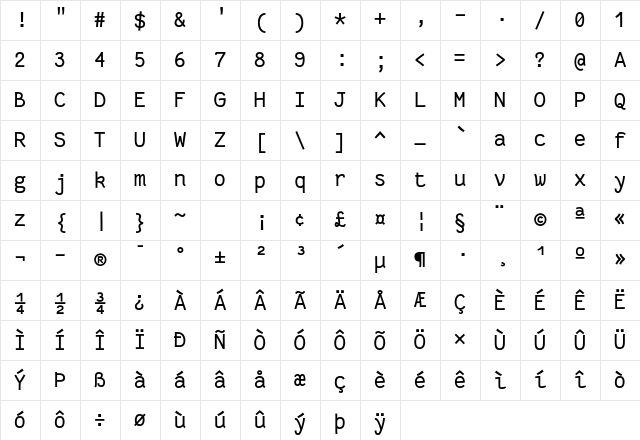
FantasqueSansMono Nerd Font Regular
Designer: Jany Belluz
Design Context for FantasqueSansMono Nerd Font
FantasqueSansMono Nerd Font uses fixed-width spacing throughout, giving it the structured, systematic character associated with coding environments and technical documentation.